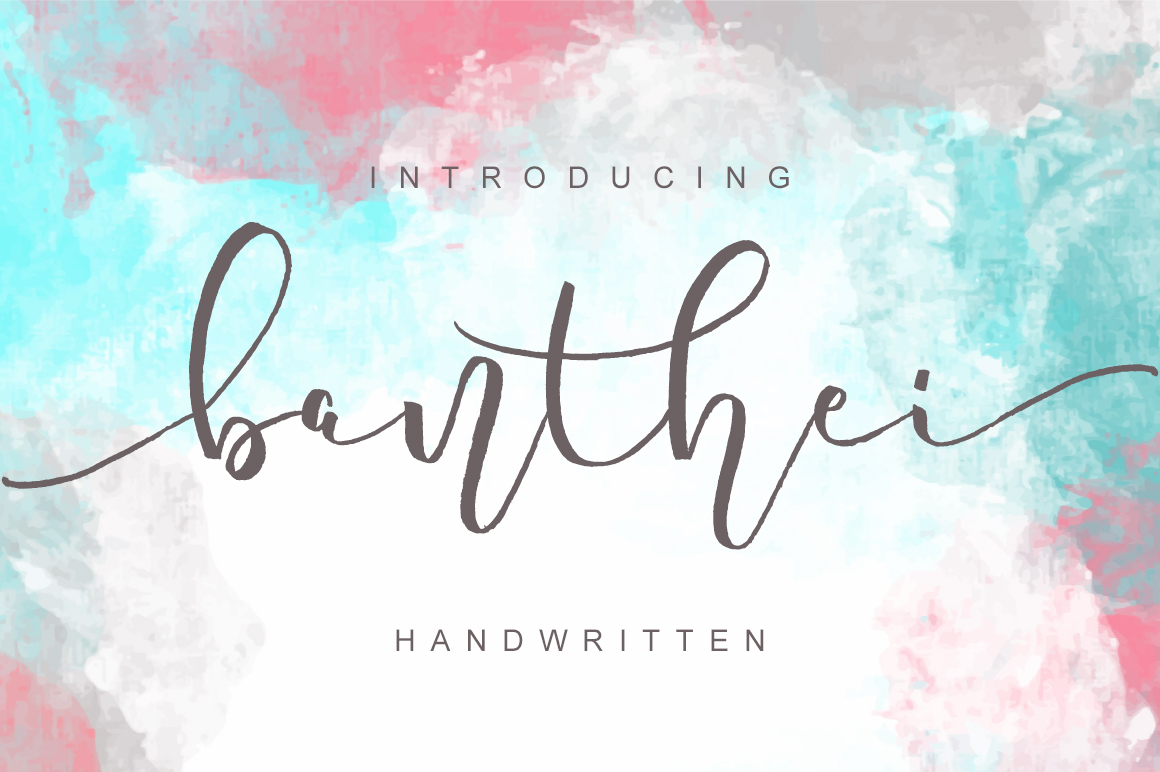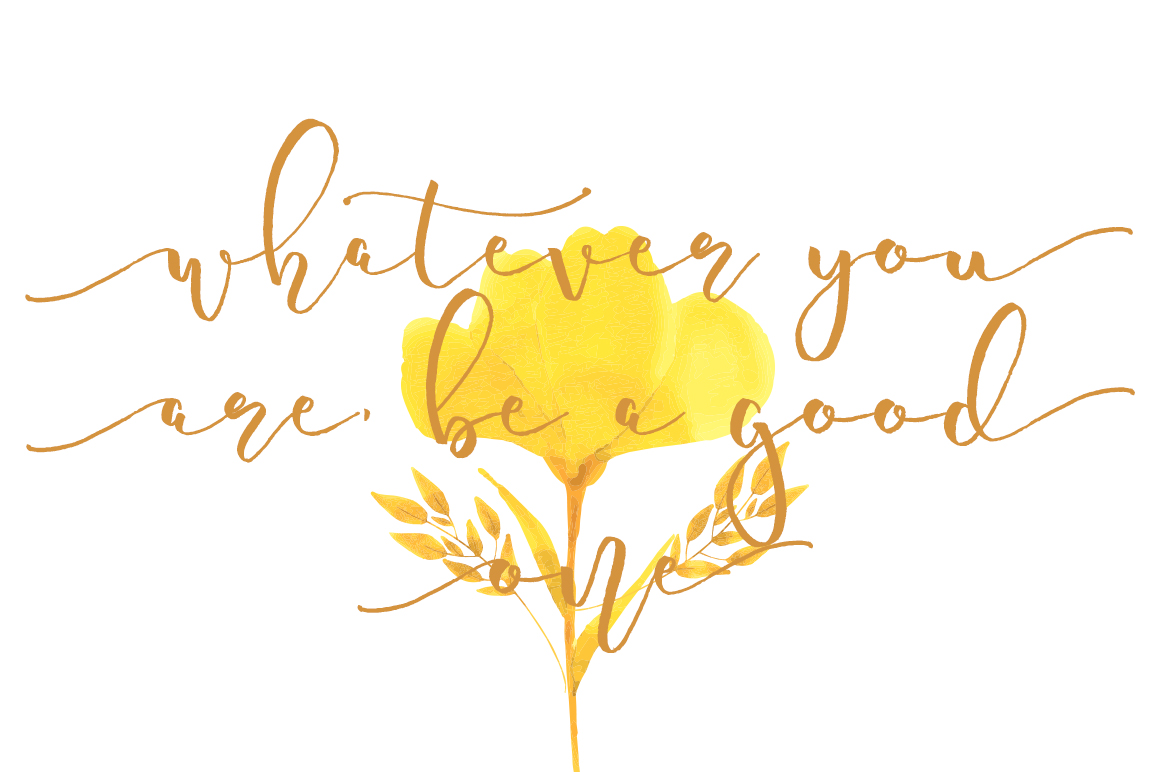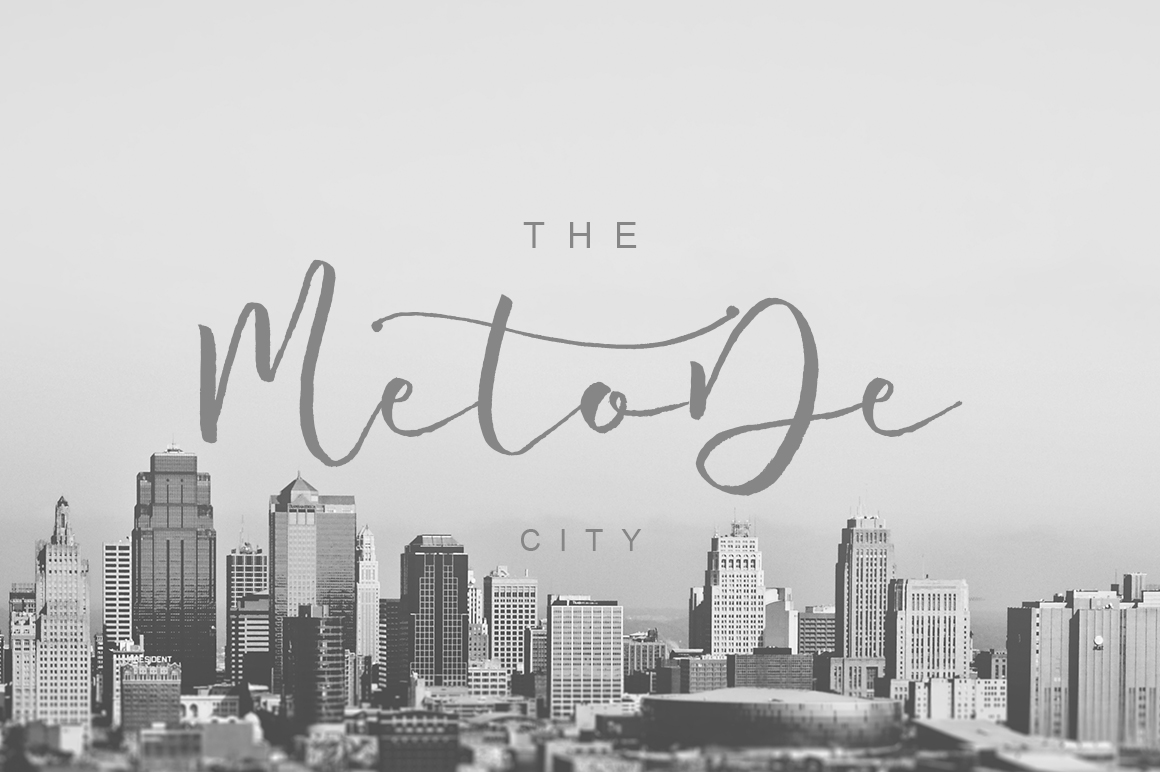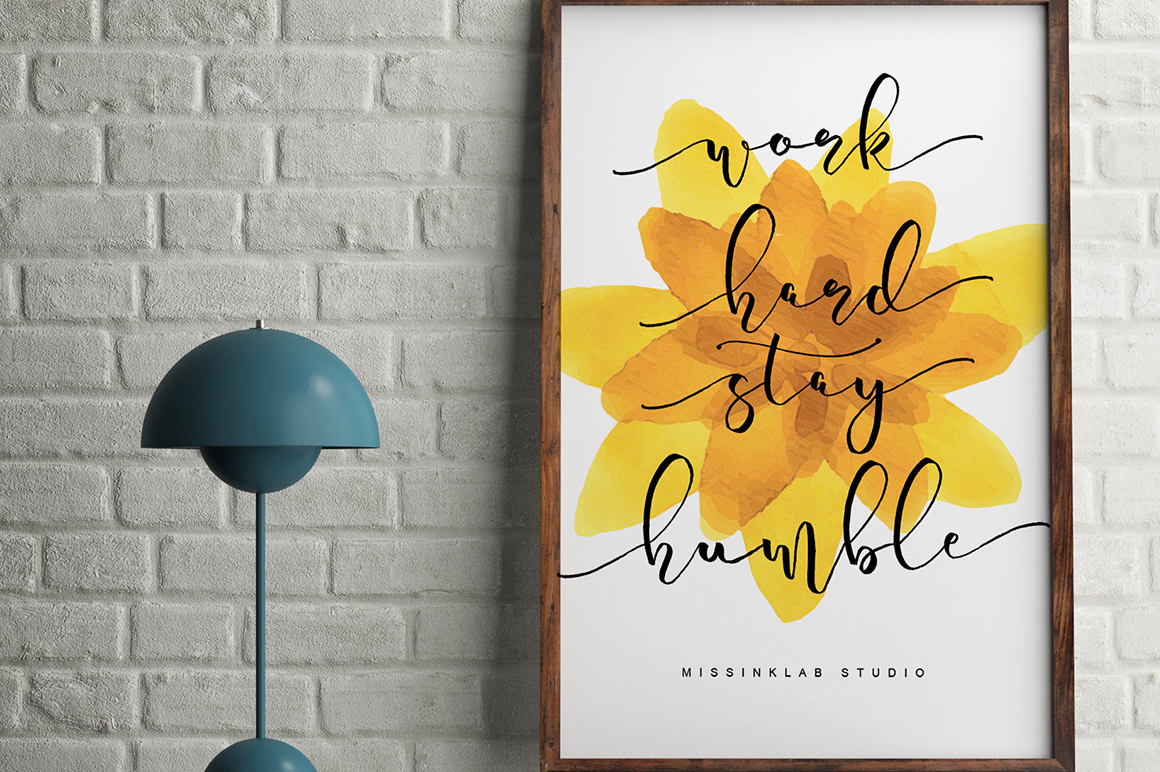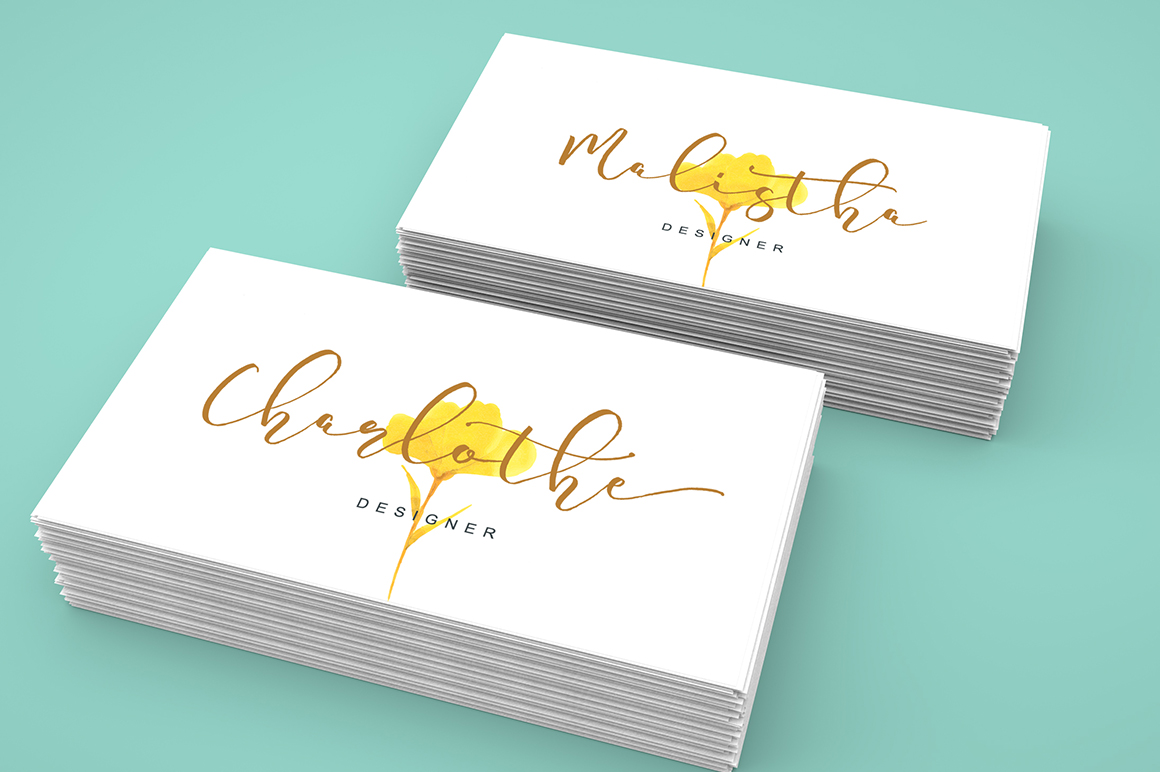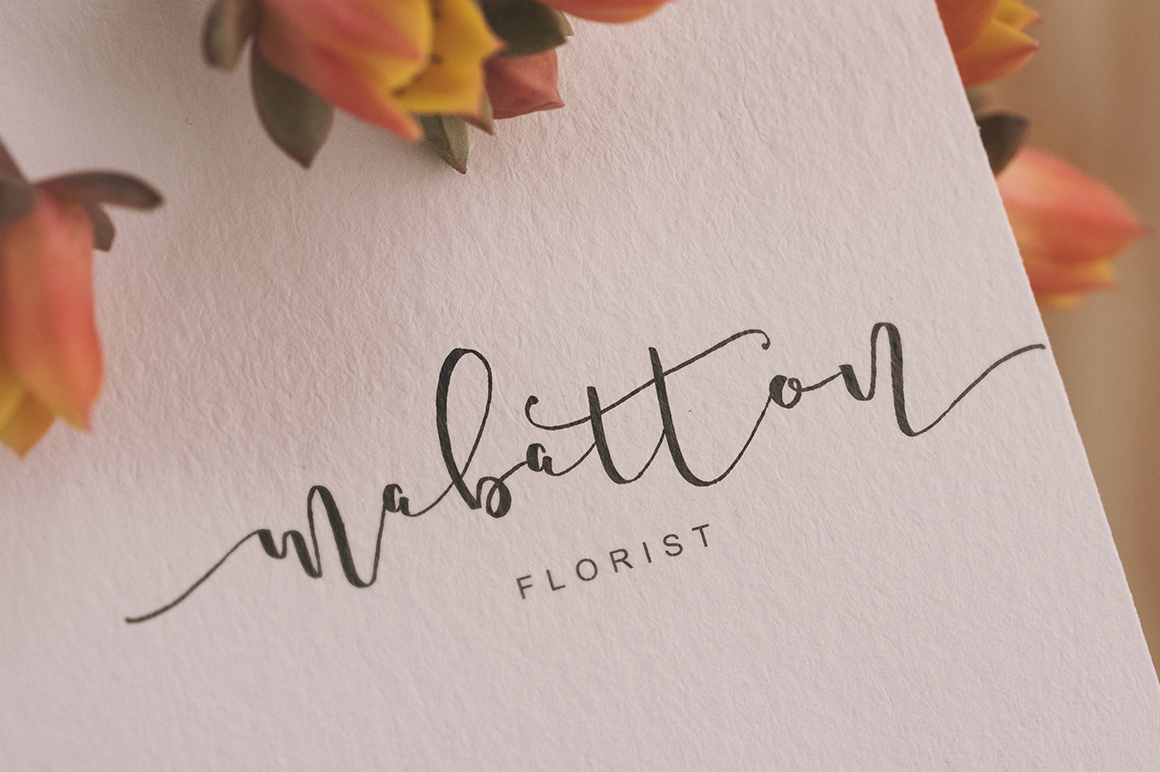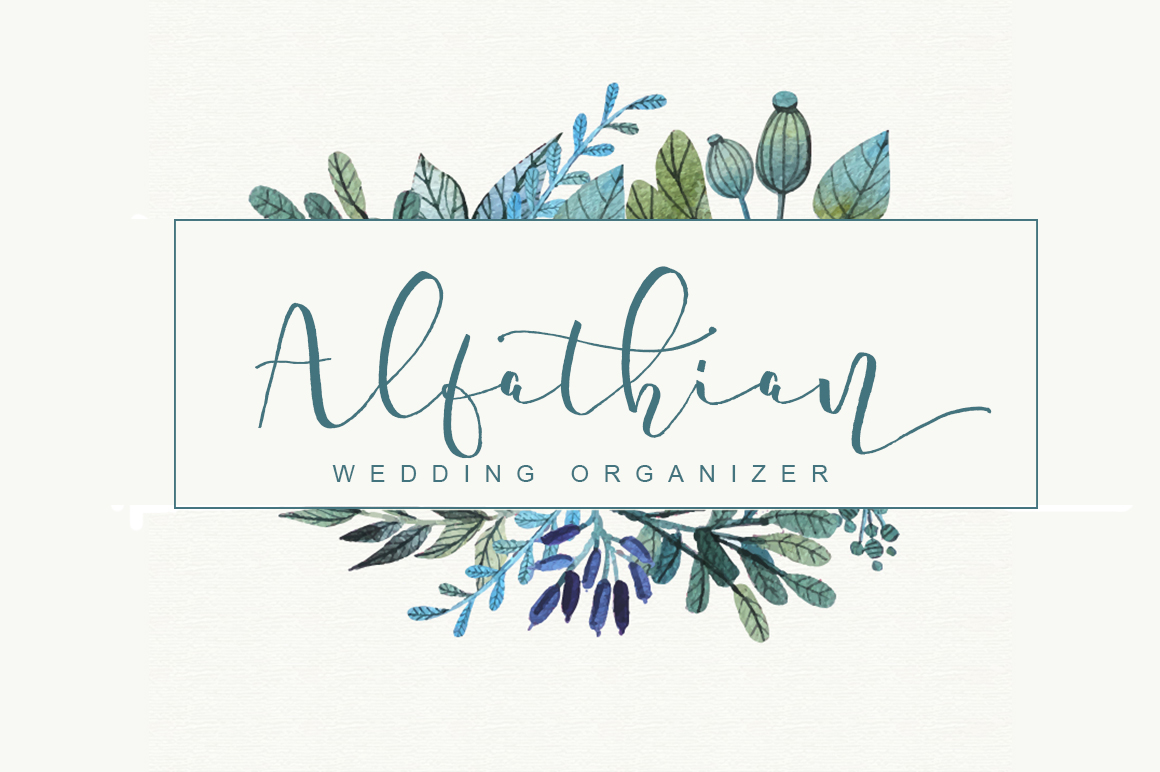
Banthei Font
About Banthei Font
Banthei is a stunning handwritten font with a modern script style. It’s perfect for many different type of craft & corporate projects.